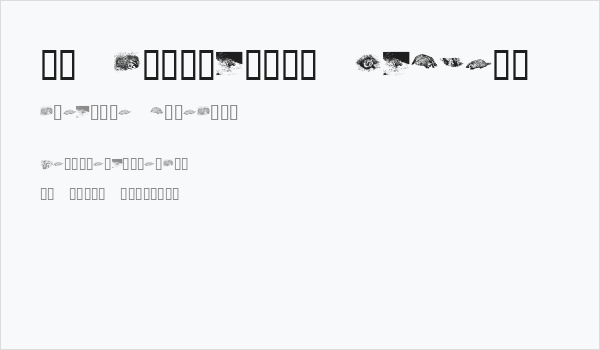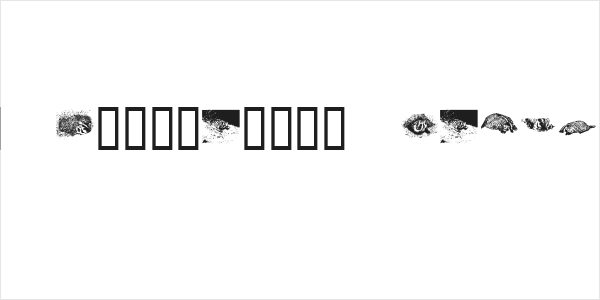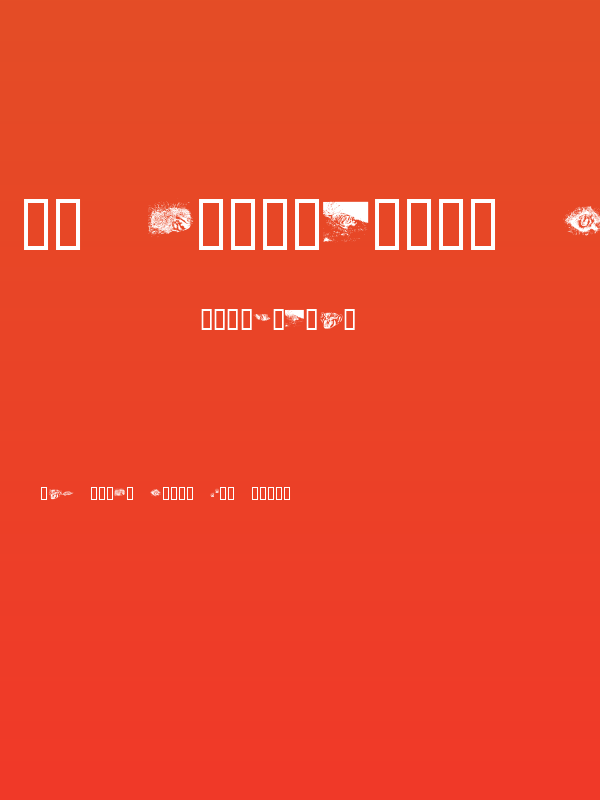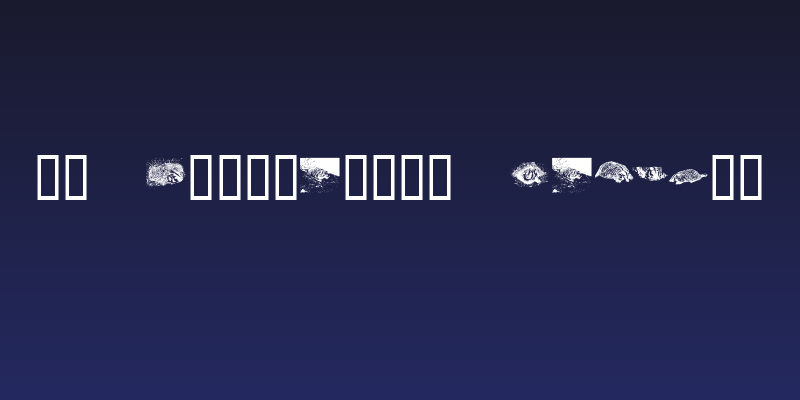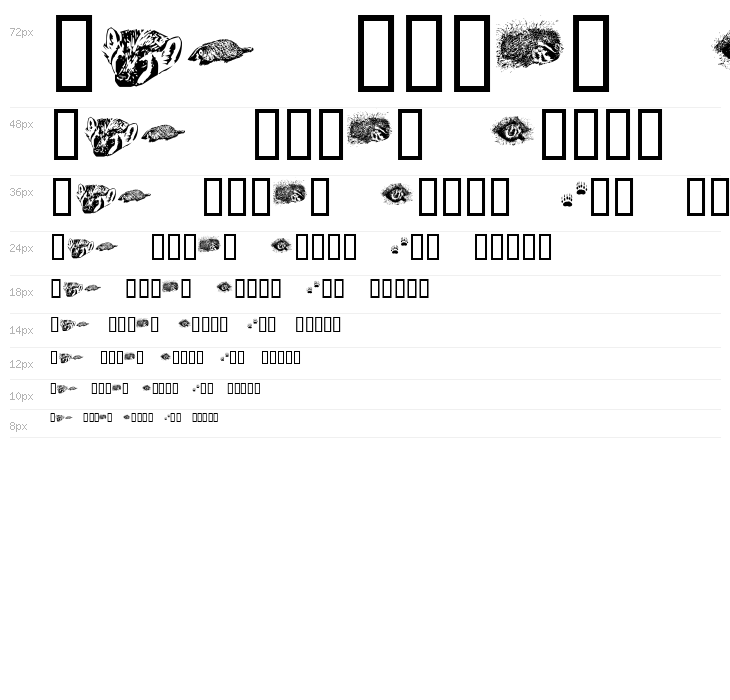
KR Crystal's Badgers Font
KR Crystal's Badgers Description
A decorative font featuring detailed illustrations of badgers and related animal elements in place of standard alphanumeric characters, with a hand-drawn, sketch-like style. The glyphs are highly pictorial rather than typographic.
| Overall Style | Decorative, Hand-drawn, Thematic |
| Use Case | Display, Themed graphics, Illustrative headings |
| Proposed Projects | Children's books, wildlife posters, educational materials, themed invitations, animal advocacy campaigns. |